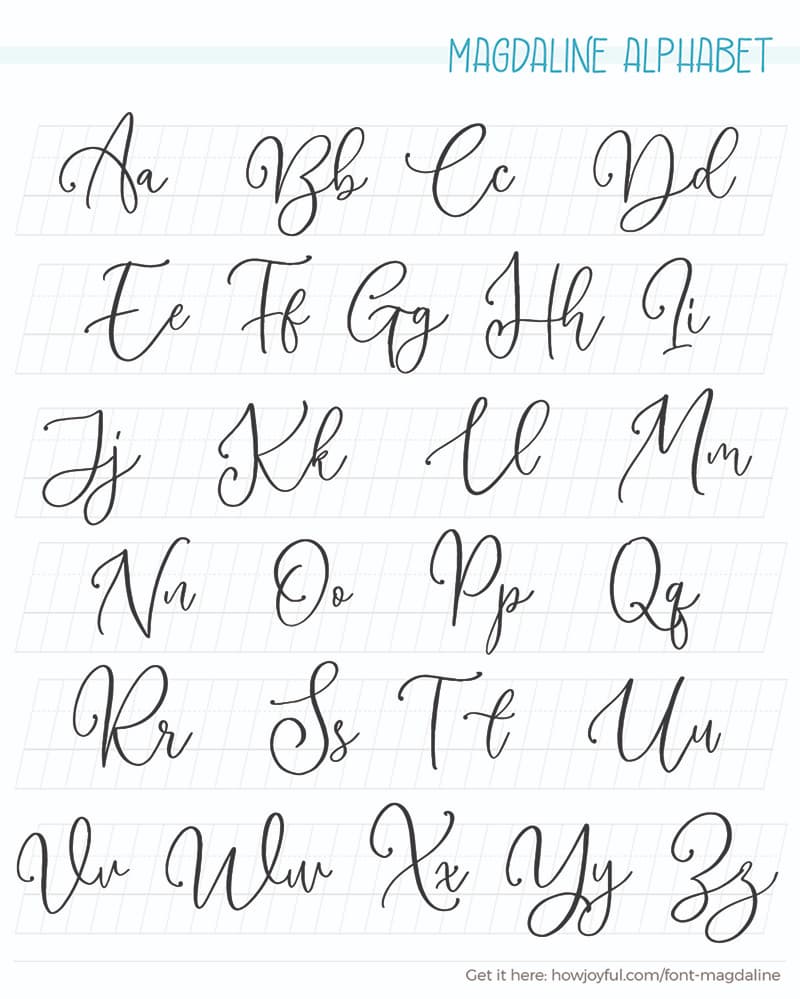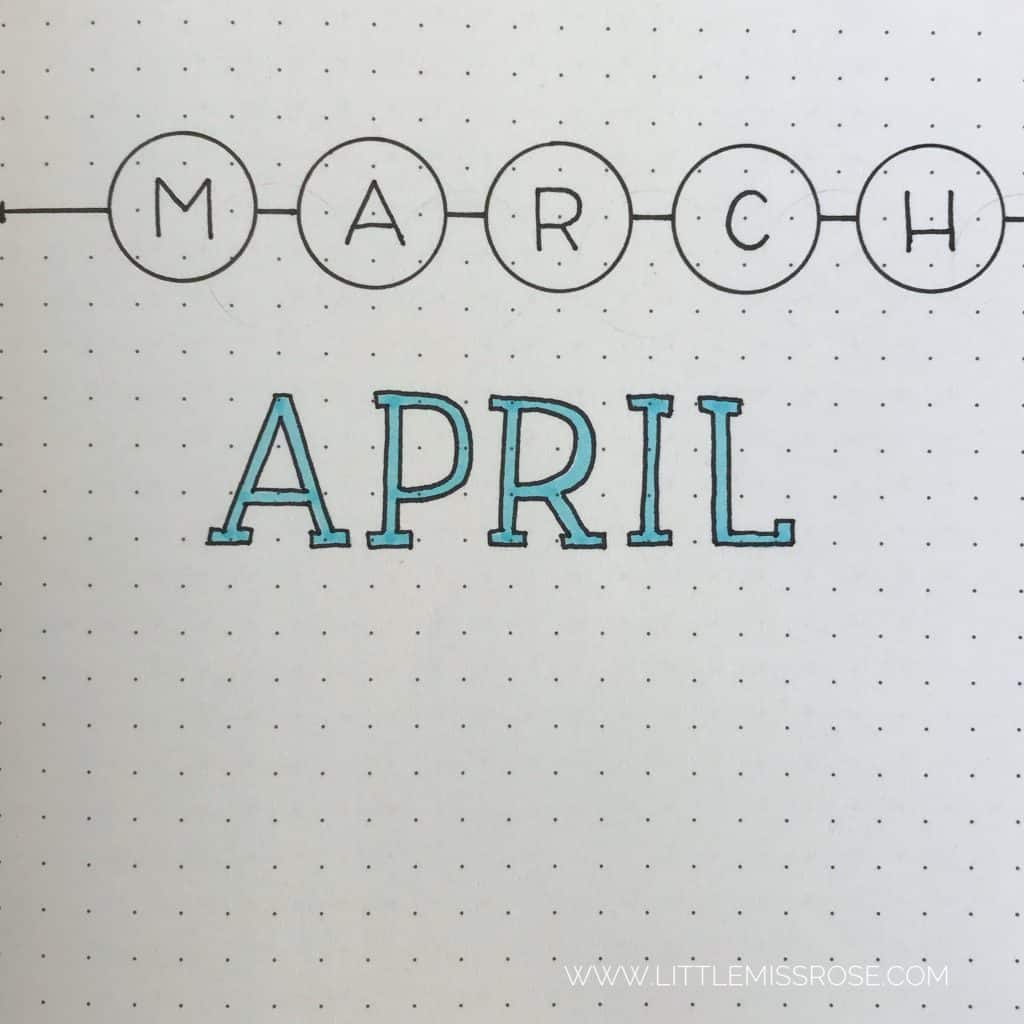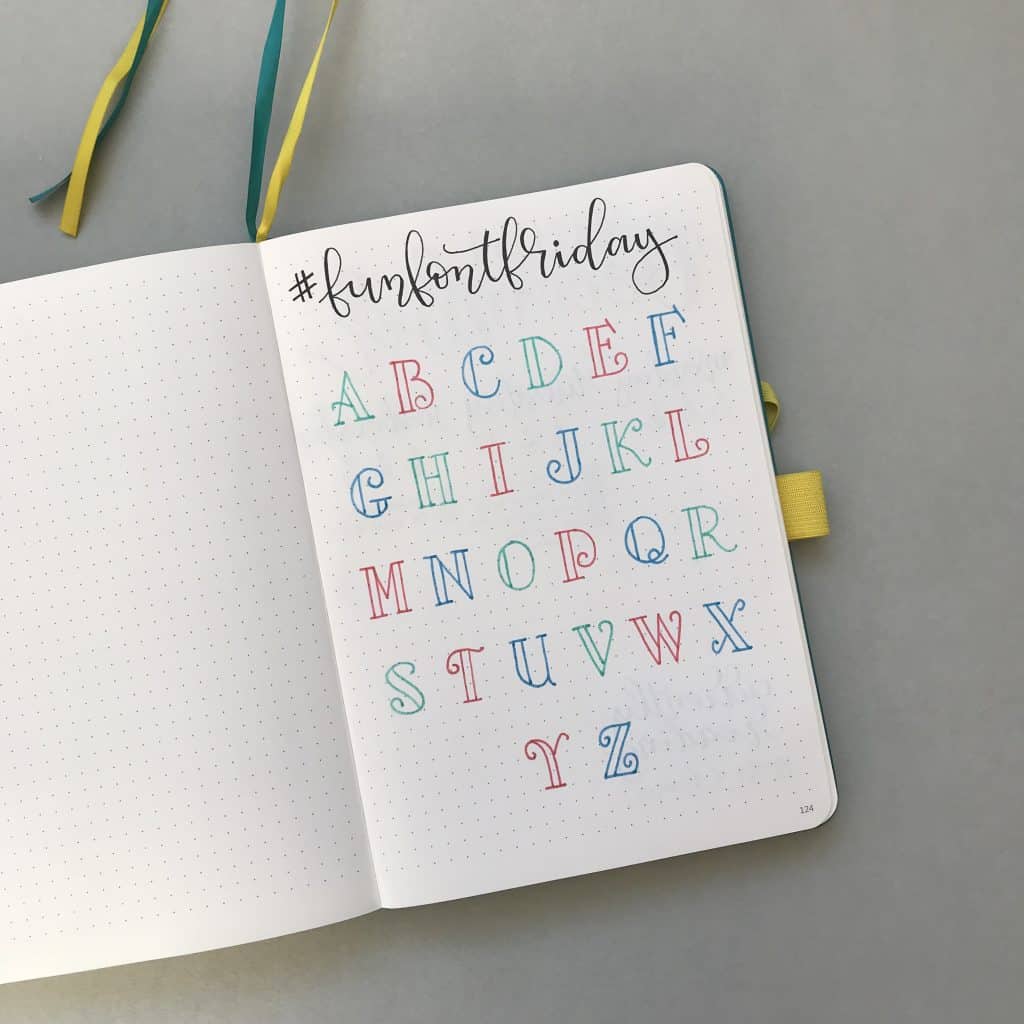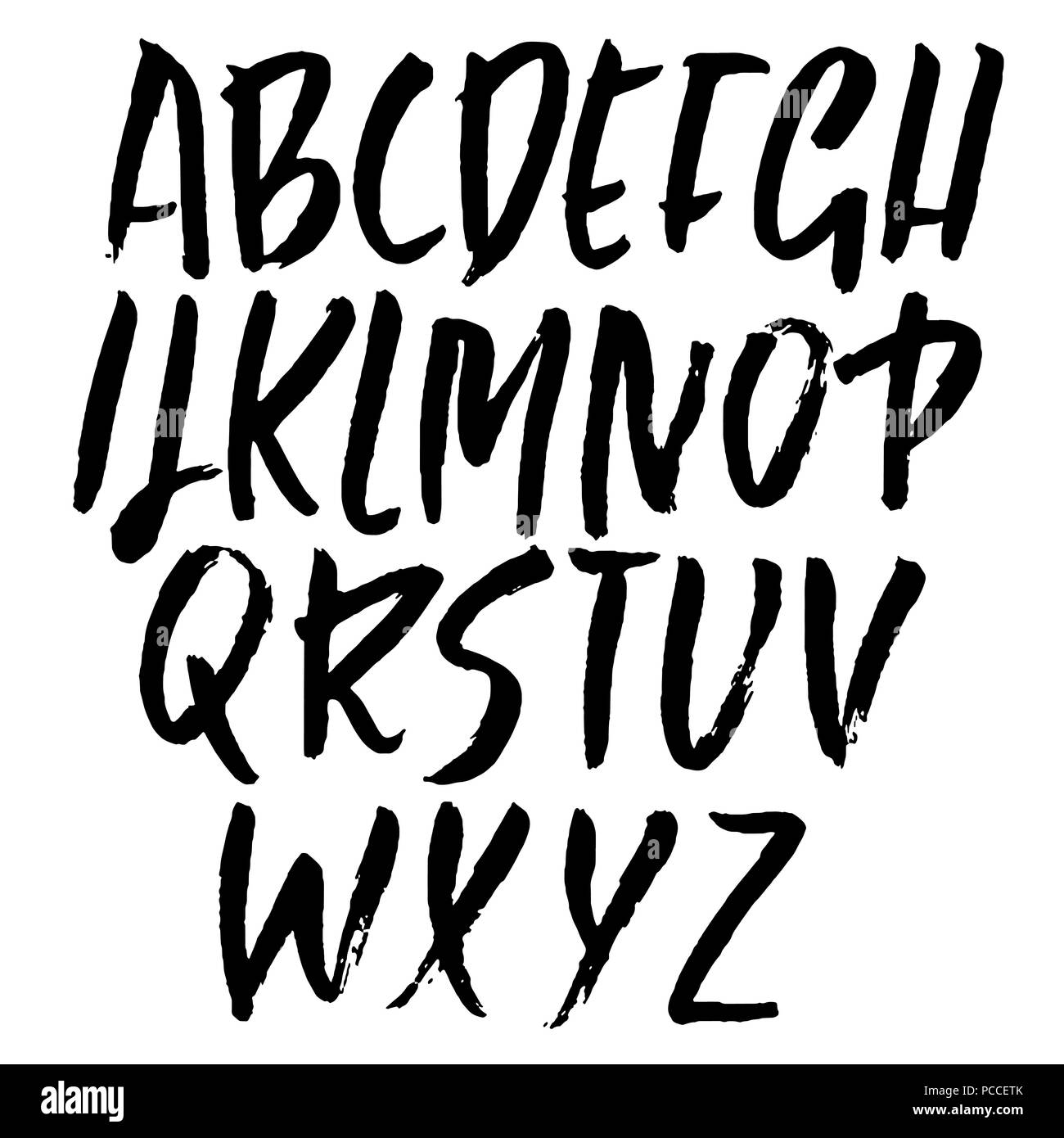
Chalkduster is a typeface based on ones handwriting using chalk. First draw up your heading in black pen.
Regardless of any natural skill the mantra holds true for everyone.
Easy hand lettering fonts alphabet. Beginner Hand Lettering Fonts Alfabeto Completo A Calligraphy Guide for the Beginners All About Fonts and Alphabets 10 Super Easy Hand Lettering Techniques with an Artful Spin Post Kiley in Kentucky Lettering alphabet Lettering styles Top 10 Free Lettering Fonts You Need to Own. Its this sort of carefree styling that makes Mali a fun and interesting font to use for handwritten text. This font has special opentype feature that allows to create the underline swash just by typingunderscore twice or more in the middle of the text see preview.
Then colour in using coloured fineliners or gel pens. These handwritten fonts are drawn using any kind of writing instrument like pen pencil felt marker brush etc. This stunning font was created in 2019 and is distinguished by the presence of capital and uppercase letters numbers and all the punctuation marks you need.
Photoshop is a staple for any creative work or design. When I first began sketching and art journaling hand lettering came easily to me. Chameeta is ideal for logo design or any other design that serves the print office.
Indie Flower is another airy and carefree hand lettering font. Tahu is great if youre looking for hand-lettering fonts for free. Or you can use a simple hand lettered font like this one.
Tonya April 1 2016. The platform houses some really nice handwriting fonts that will surely be useful for your creative works. Its easy to use and includes the full alphabet character set.
See more ideas about hand lettering fonts. It comes in capital letters making it a good option for large designs like posters. Created by Amanda Leeson this fresh clean handwriting font has a big contrast between letters and lines making it very legible.
Click to find the best 1494 free fonts in the Hand Lettering style. You can create your own by using faux calligraphy which I show you how to do in this post. This hand lettering font is inspired by a 6th graders handwriting and it shows.
In addition the font easily supports multilingual letters. Introducing TakeEasy brush font made by manual hand brush which gives personal feel into your design needs. It has bubbly rounded edges and includes all the standard letters.
Jun 15 2019 - These examples of hand lettered alphabets are great inspiration for your own hand lettering. This font requires hand-lettering that you can colour in. 3 Easy Hand Lettering Fonts PLUS a Printable.
Chameeta Handwriting Font. Lettering is still one of my favorite parts of journaling. Using her popular Hand Lettering Bundle and Just Start Lettering course she makes learning hand-lettering easy and fun so that busy women all over the world can learn to confidently create beautiful lettering.
The lines move with a purpose but dont have any rigidity. Also included in this pack are multilingual characters for additional support. Its textured and thick lines with the chalk dust effect complete the whole look.
This chunky font highlights the marker strokes to give it a cool rugged look. Oct 25 2019 - Drawing Ideas Easy Hand Lettering Alphabet Fonts 63 Ideas. Looking for Hand Lettering fonts.